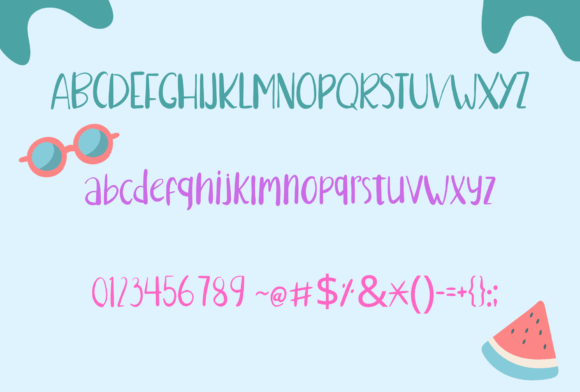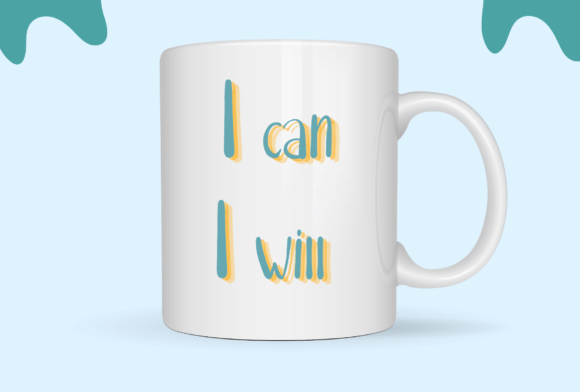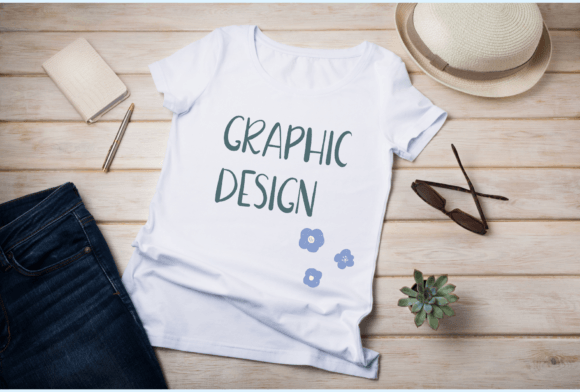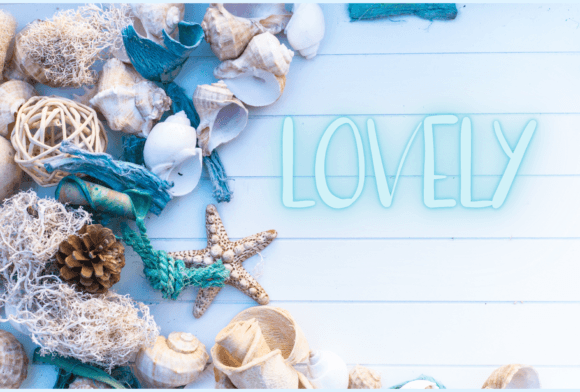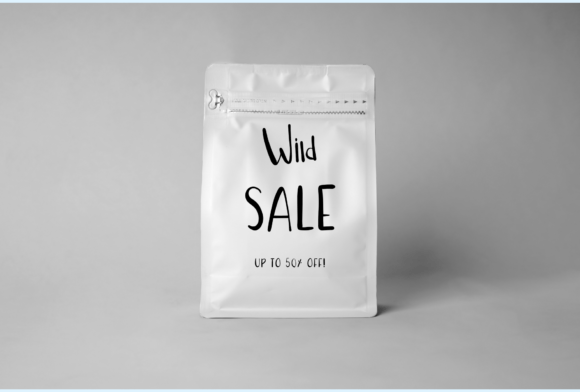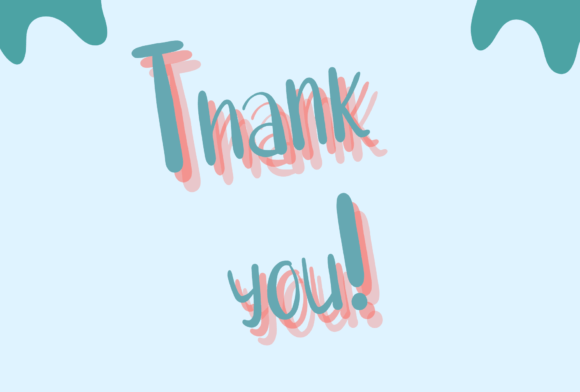
When Words Become Art: The Magic of By Dropping Font
You know that feeling when a project comes together, and every element falls into place? The font, the colors, the layout – it all harmonizes to create something truly special. For many designers, this moment is the result of careful consideration and a deep understanding of typography. One key to unlocking this magic is the right font, and for those seeking a unique, handwritten feel, By Dropping Font is an excellent choice.
By Dropping Font is a modern, stylish script that adds a touch of elegance and sophistication to any project. Whether you’re creating wedding invitations, business cards, or logos, this versatile font is sure to impress. Its natural, handwritten style makes it perfect for designers looking to add a customized touch to their work.
Key Features of “By Dropping Font”
- Font Family: The font is a sans-serif font, specifically designed for digital use.
- Size: The font family includes 12 weights, ranging from Light to Black, with matching italics.
- Unique Characteristics: Features a unique, humanist design with a focus on legibility and readability.
- Character Set: Includes a comprehensive character set, supporting over 100 languages.
By Dropping Font Review
Overall, I’m impressed with what By Dropping Font offers. ✨ It’s a simple, yet effective font that can add a touch of elegance to your designs. The font is clean, modern, and highly legible, making it perfect for a wide range of projects.
- ✨ Clean and modern design
- ✨ Highly legible font
- ✨ Suitable for a wide range of projects
One of the standout features of By Dropping Font is its versatility. It’s perfect for use in headings, body text, and even as a display font. The font is also highly customizable, with a range of weights and styles to choose from.
- ⚠️ Limited language support
- ⚠️ May not be suitable for use in very small sizes
- ⚠️ Some users may find the font too minimalist
Overall, I would recommend By Dropping Font to anyone looking for a clean and modern font. While it may have some limitations, the font’s versatility and customizability make it a great choice for a wide range of projects.